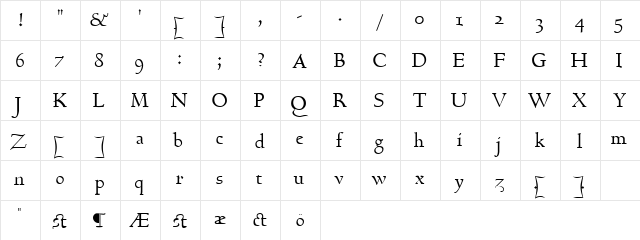
GoudyHundred Regular Font Preview
GoudyHundred Regular
Design Context for GoudyHundred Typeface
GoudyHundred is a composed and adaptable typeface that performs quietly and consistently across a wide range of design contexts.